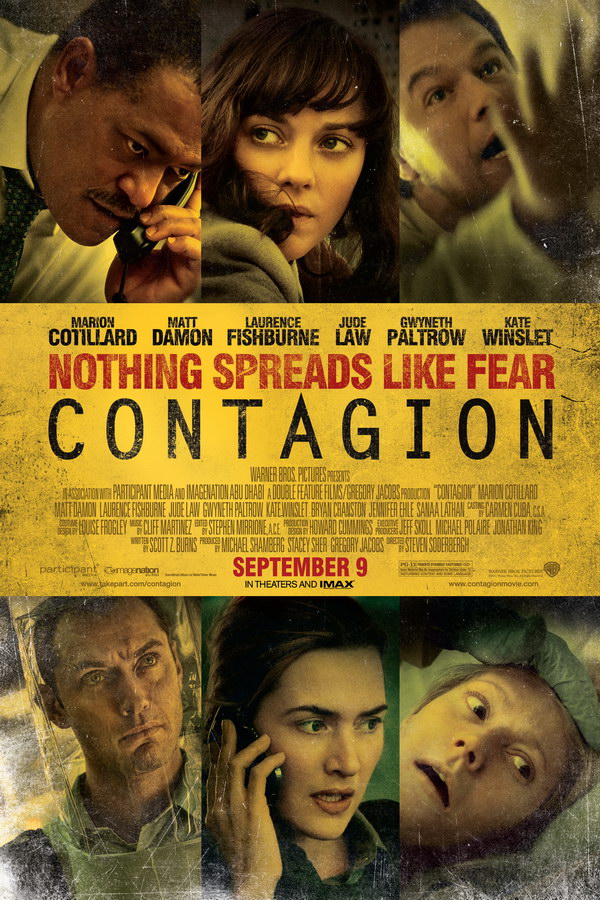
Contagion Font
Fonts in UseContagion is a 2011 thriller film directed by Steven Soderbergh that explores the outbreak and spread of a deadly virus across the world, and the efforts of scientists and government officials to contain it. The star-studded cast includes Matt Damon, Kate Winslet, and Jude Law.
The typeface utilized on the movie poster title is most likely Letter Gothic L Medium, created by Roger Roberson for IBM in 1962. It's a proprietary font and is available for purchase here.